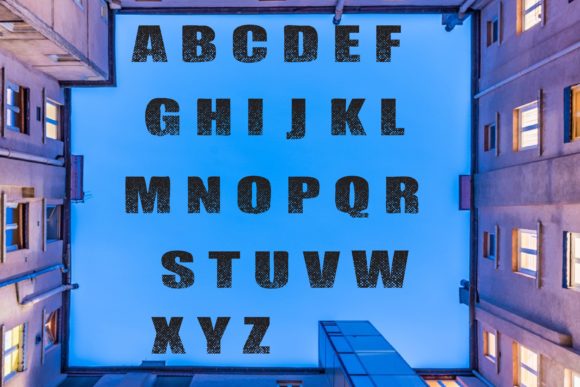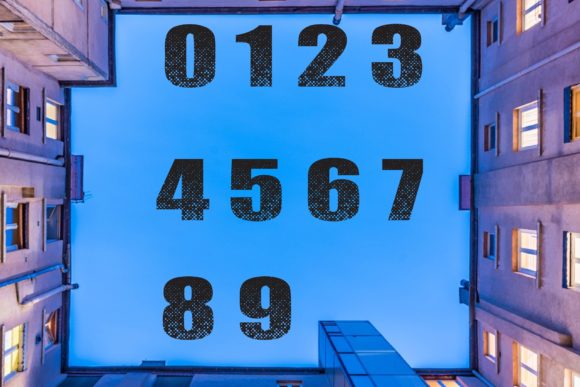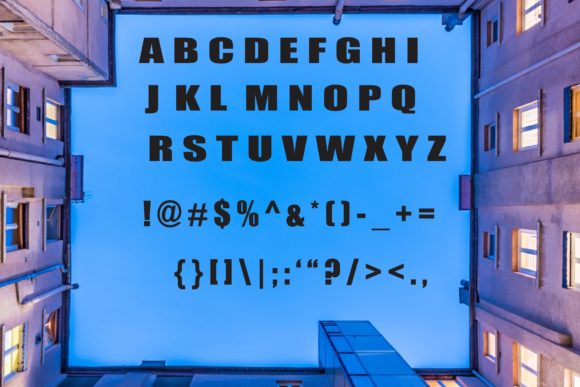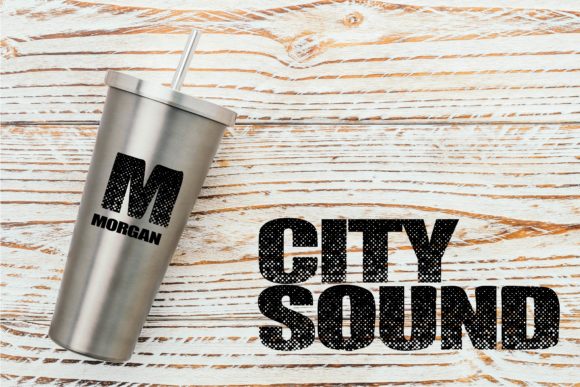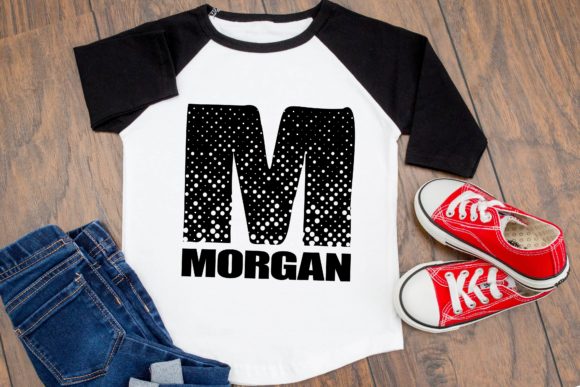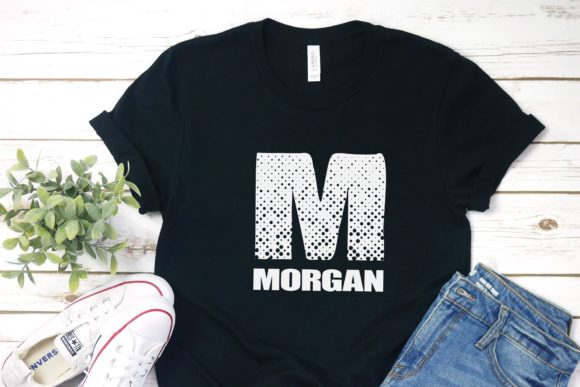
Introduction to City Sound Font
City Sound is a great display font.
It will look outstanding in any context, whether itโ€™s being used on busy backgrounds or as a standalone headline .
Key Features of City Sound Font